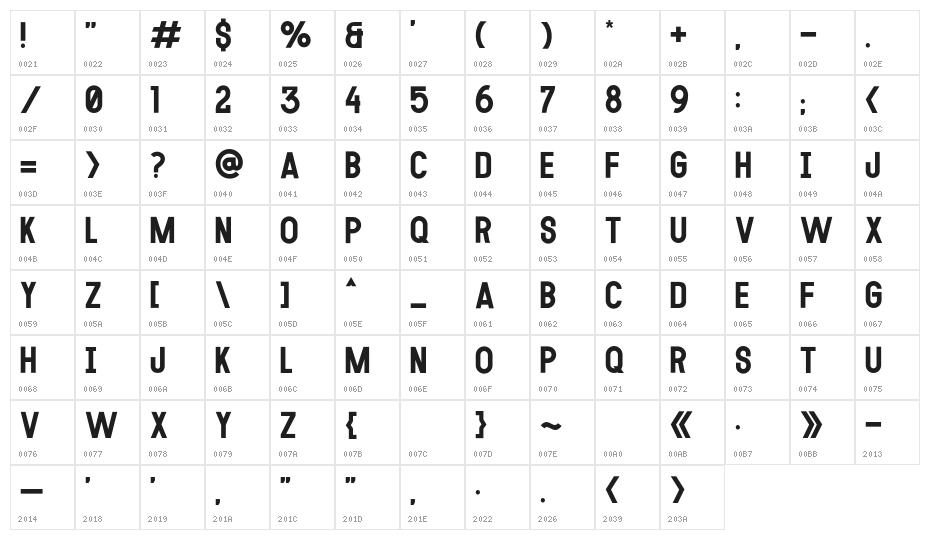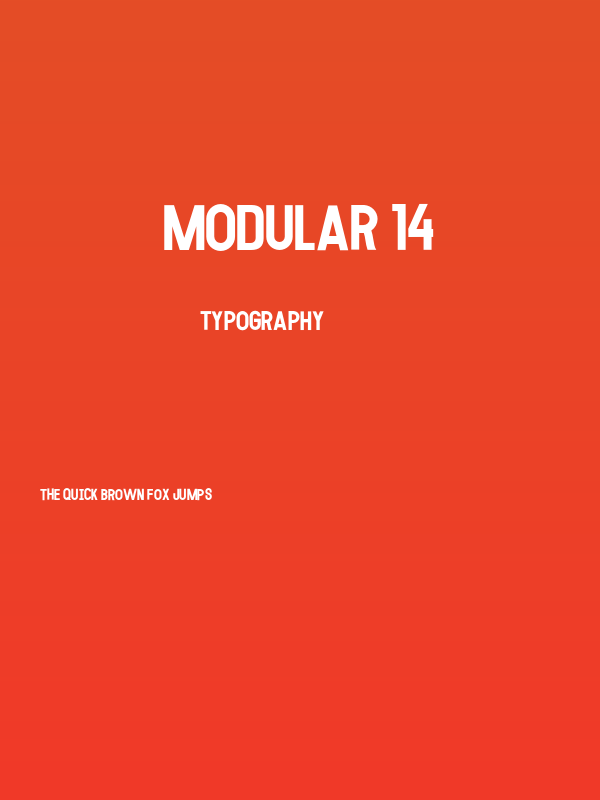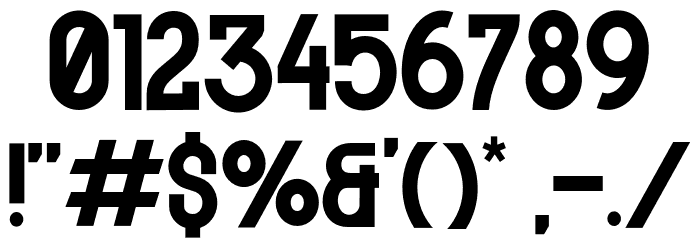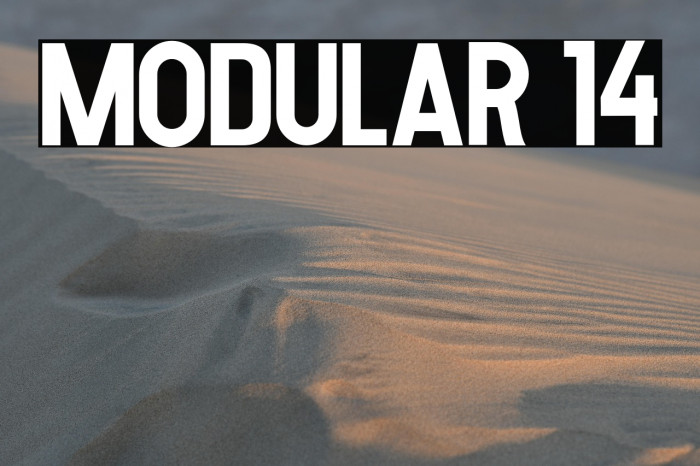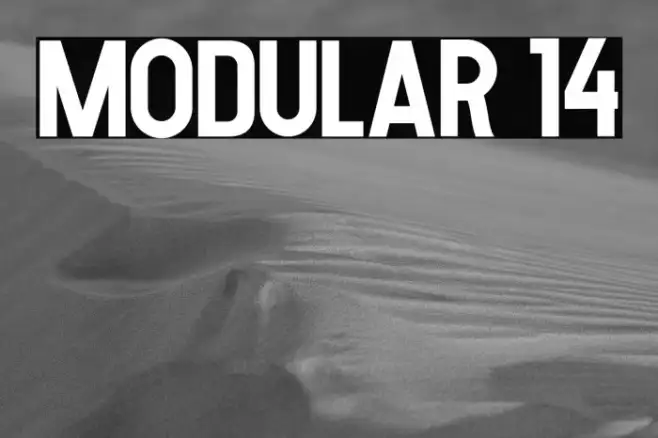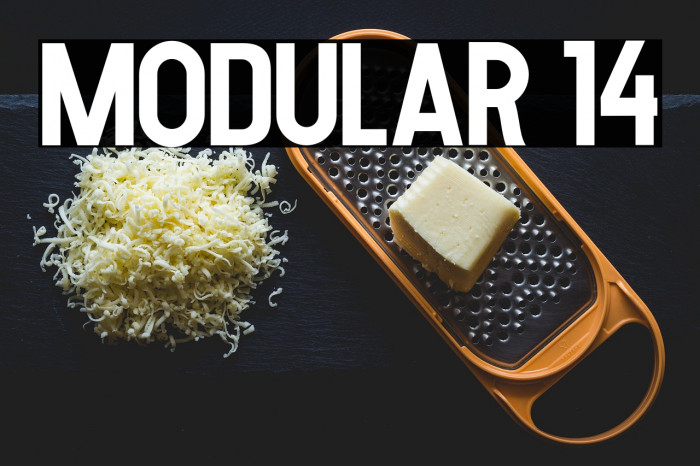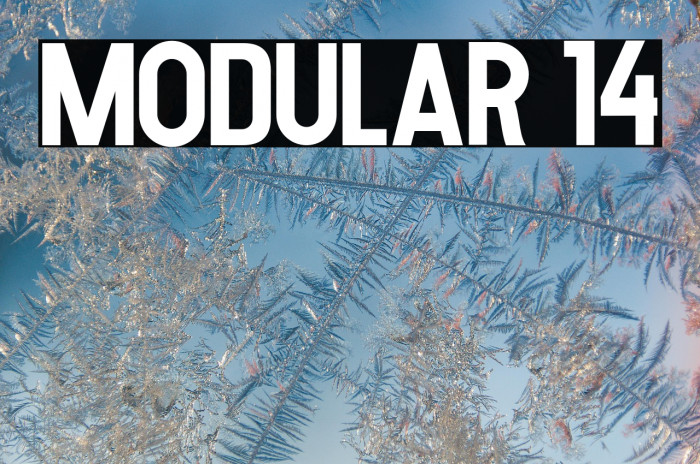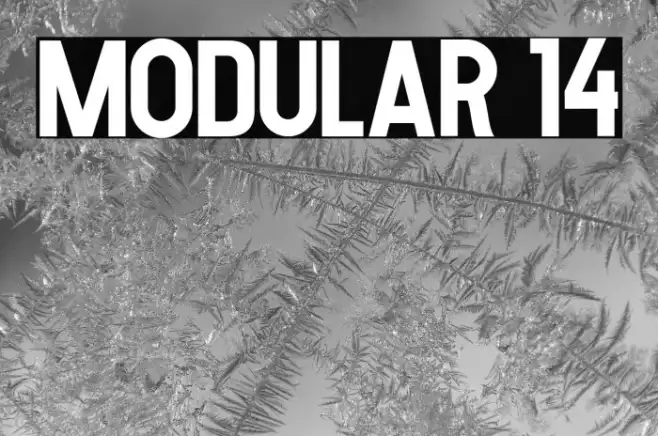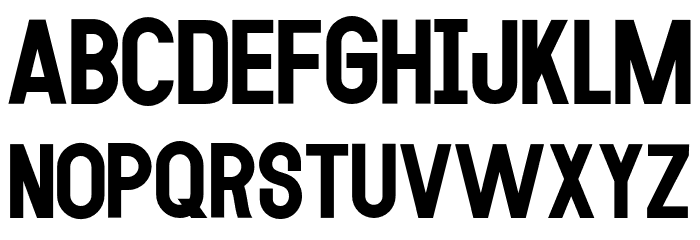
MODULAR 14 Font
MODULAR 14 Description
This font features a bold and assertive design with strong geometric shapes and clean lines. The uppercase letters are uniform in height, creating a cohesive and structured appearance. The lowercase letters maintain the same boldness, ensuring readability and impact. Numbers are equally robust, with a consistent thickness that matches the alphabet. Special characters are designed to complement the overall style, maintaining the font's bold and modern aesthetic. The font's design is ideal for making a statement, with its high contrast and solid presence.
| Proposed Projects | Ideal for branding, posters, headlines, and any project requiring a strong visual impact. |